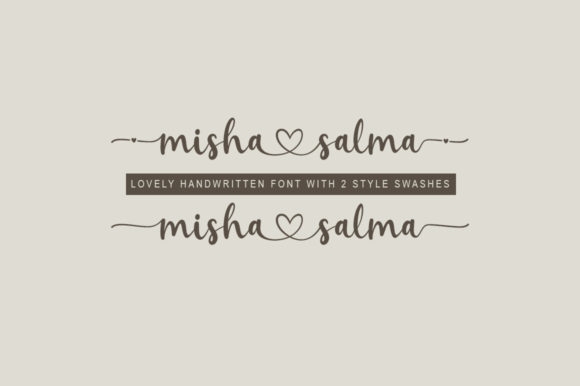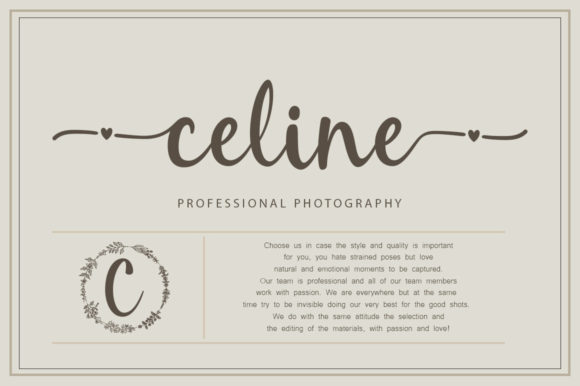
Misha Salma Font
db-ku.com - Script & Handwritten -- Misha Salma is a refined and dainty handwritten font. Dainty and joyful, this font will be ideal for writing wedding invitations, cards or any other design that may need a romantic, personalized touch! This font is PUA encoded which means you can access all of the glyphs and swashes with ease!